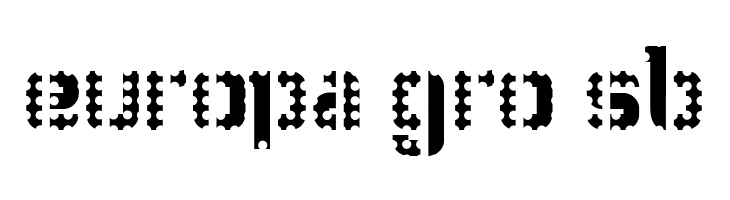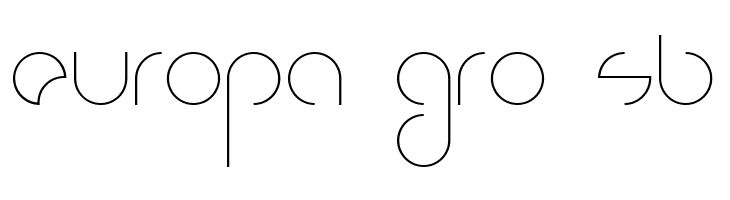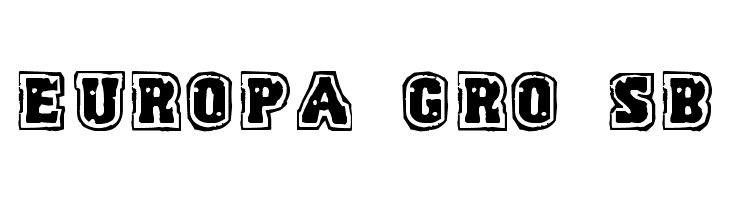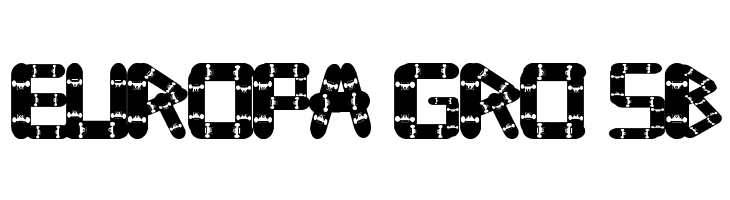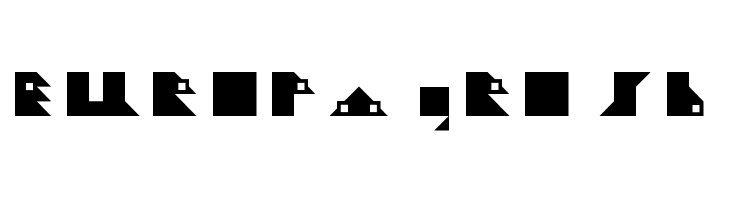
A bold, perforated font with an industrial, modern aesthetic.
A sleek, geometric font with a modern, minimalist design.
A bold, decorative font with a distressed, playful texture.
A bold, industrial stencil font with unique punched-out sections.
A bold, decorative font with a chain-like pattern and rounded strokes.
A bold, geometric font with a retro-futuristic style and unique cutout designs.